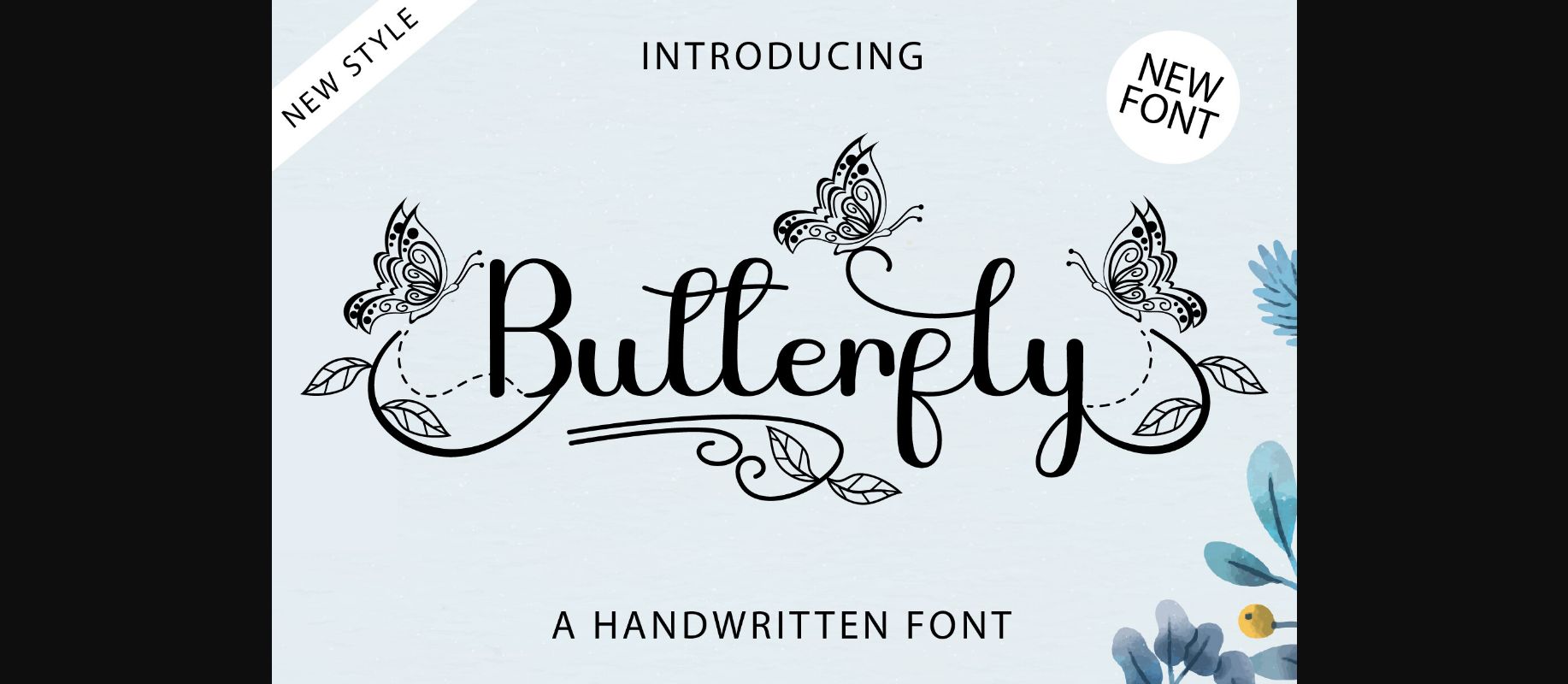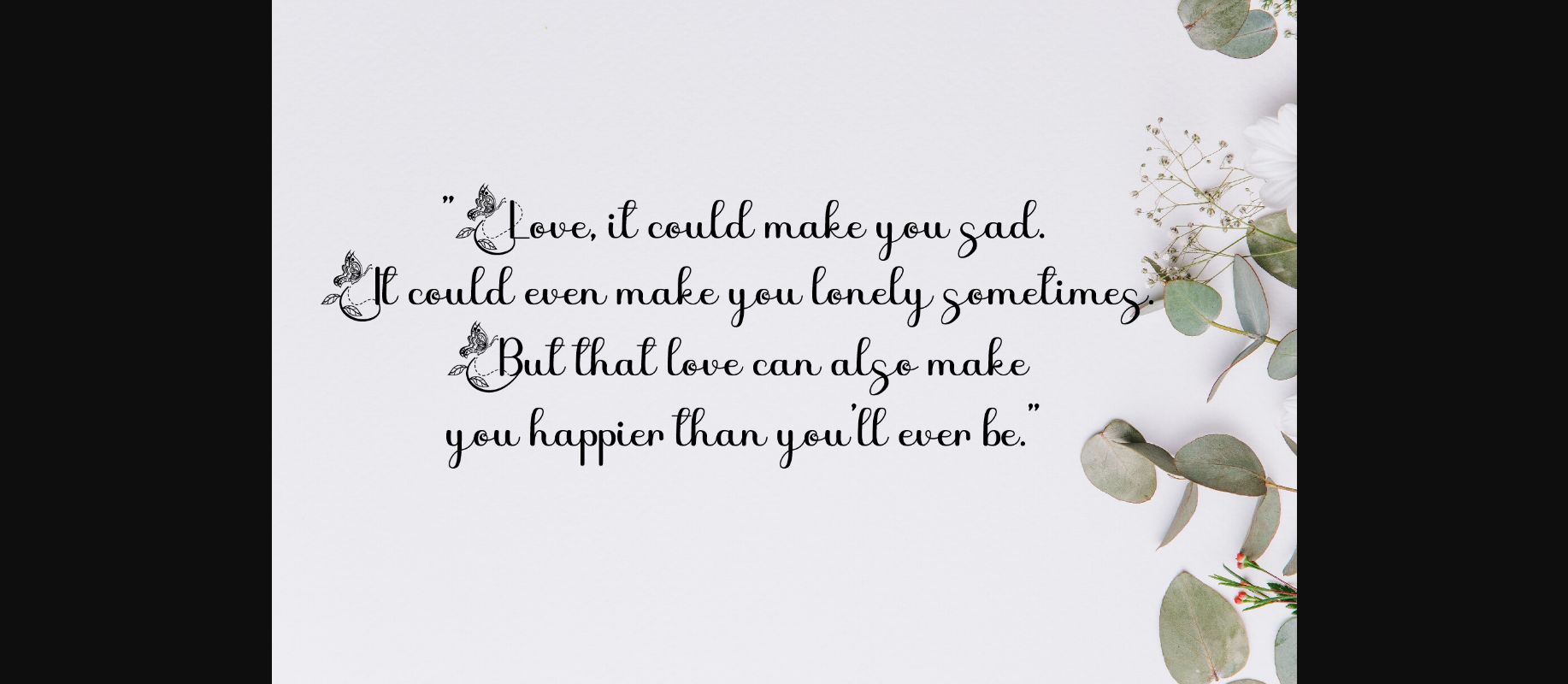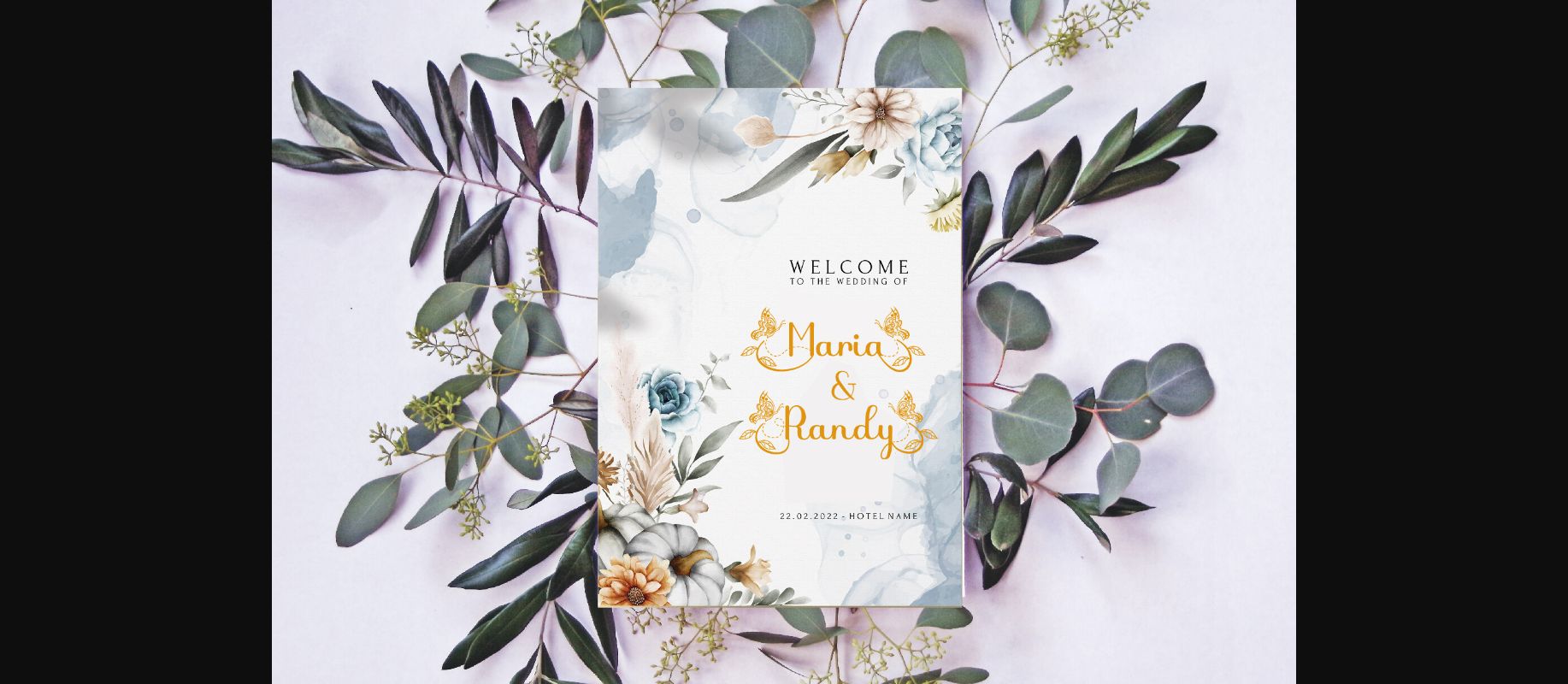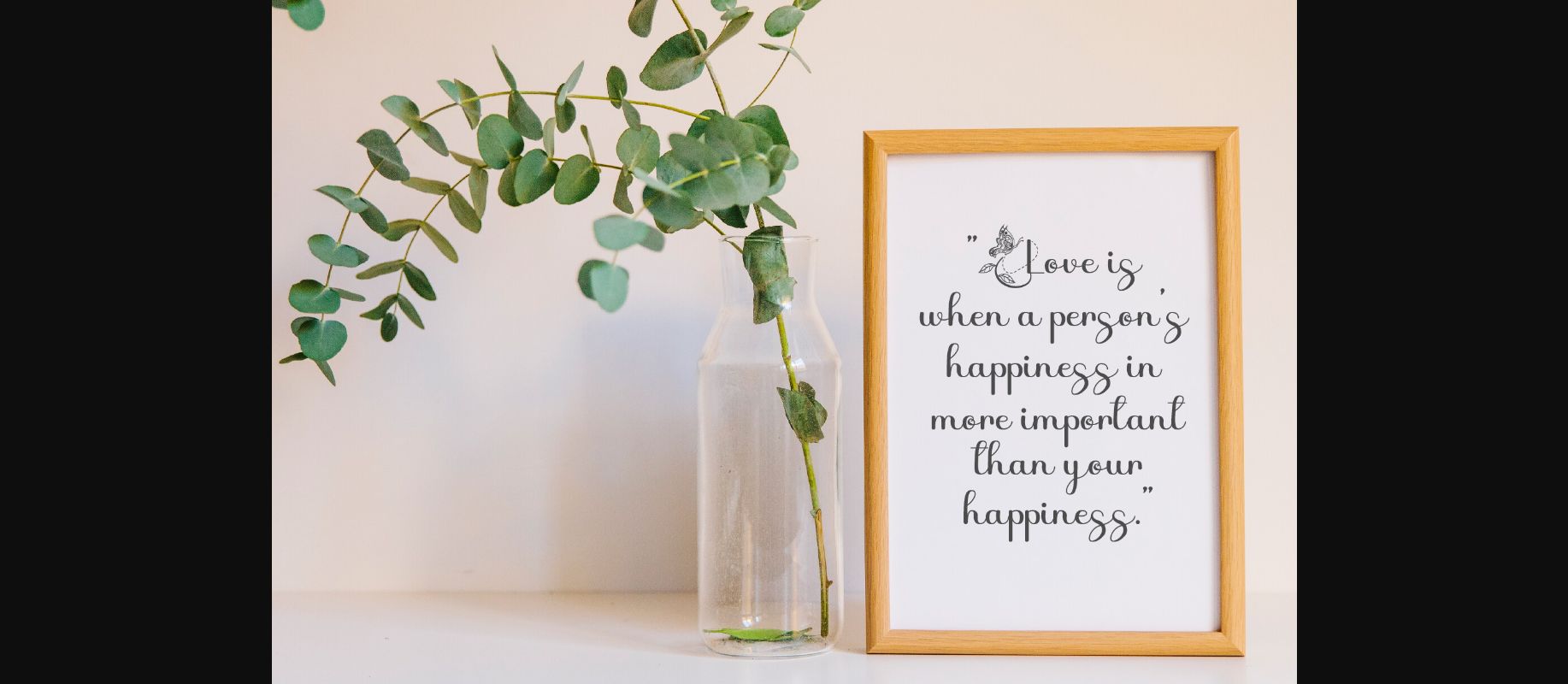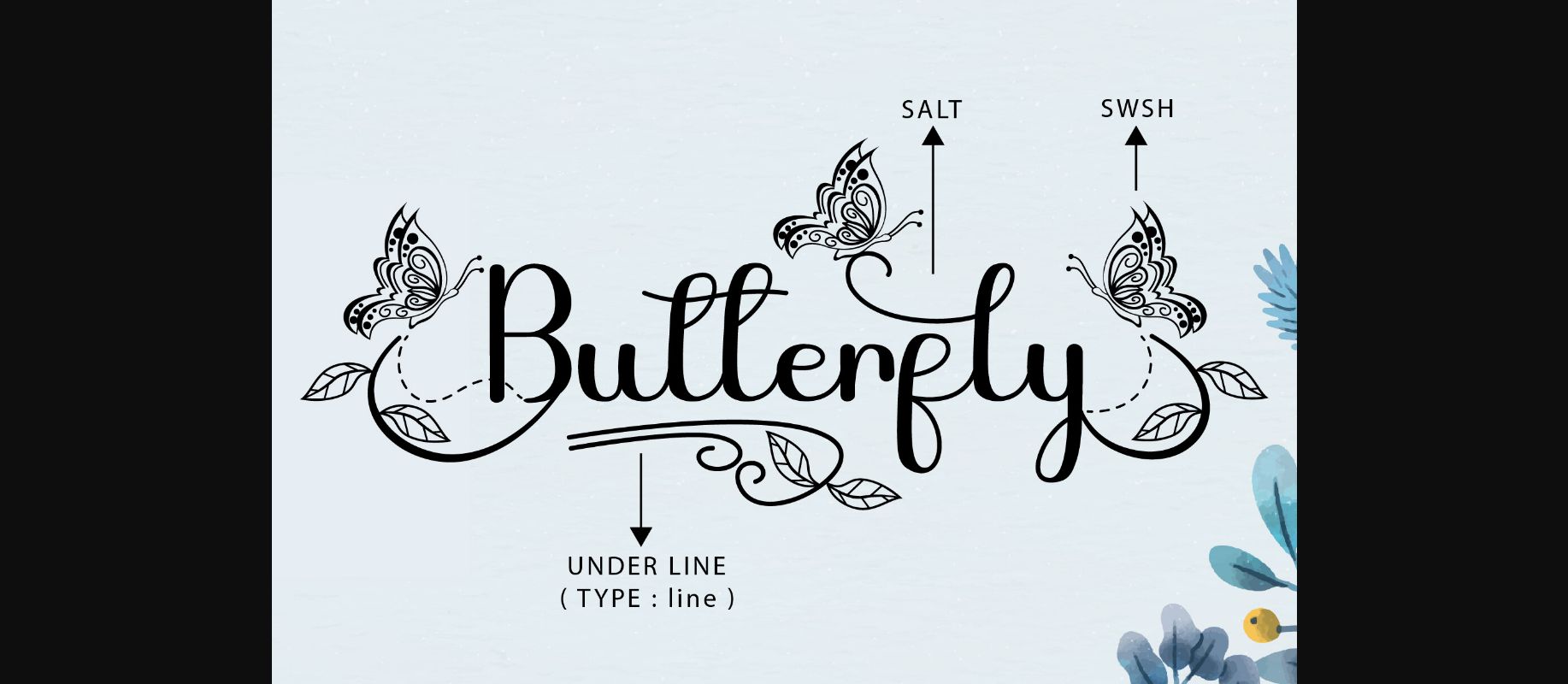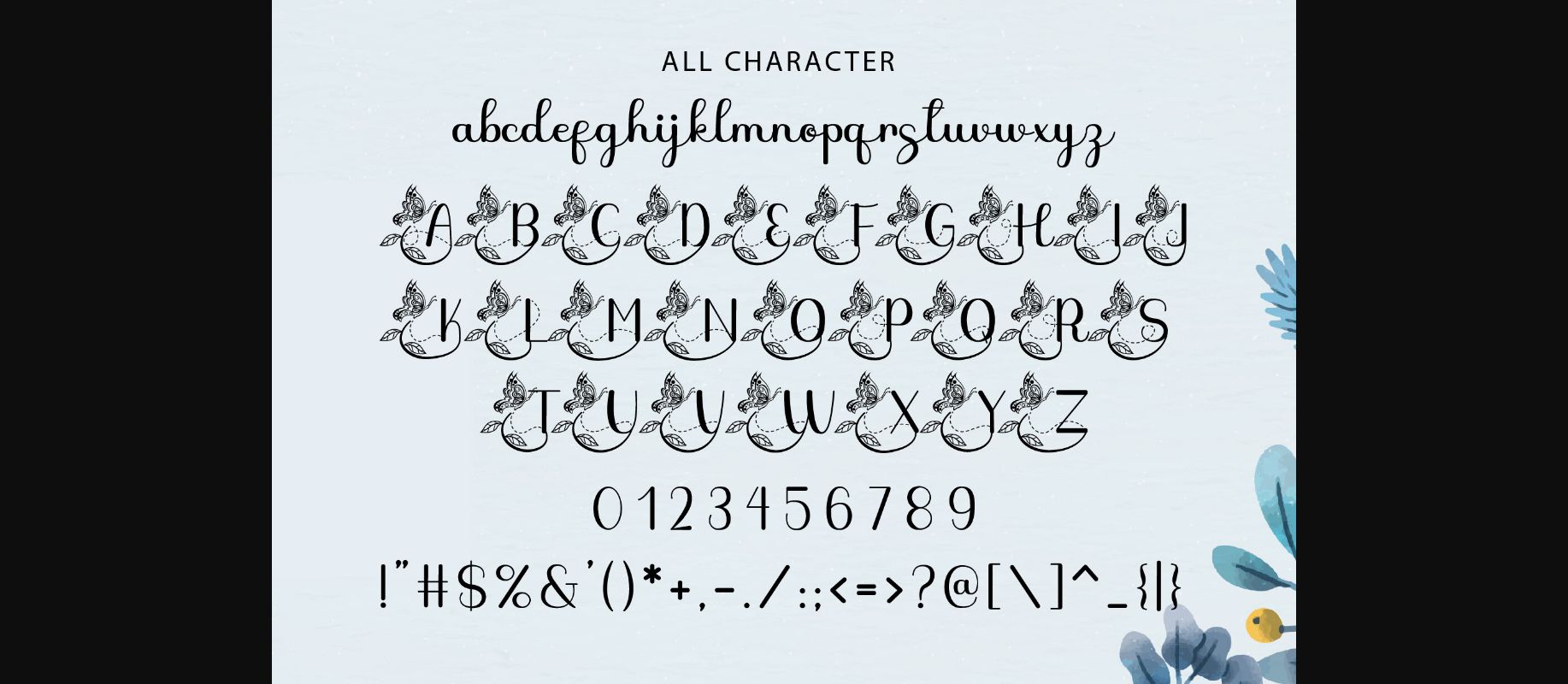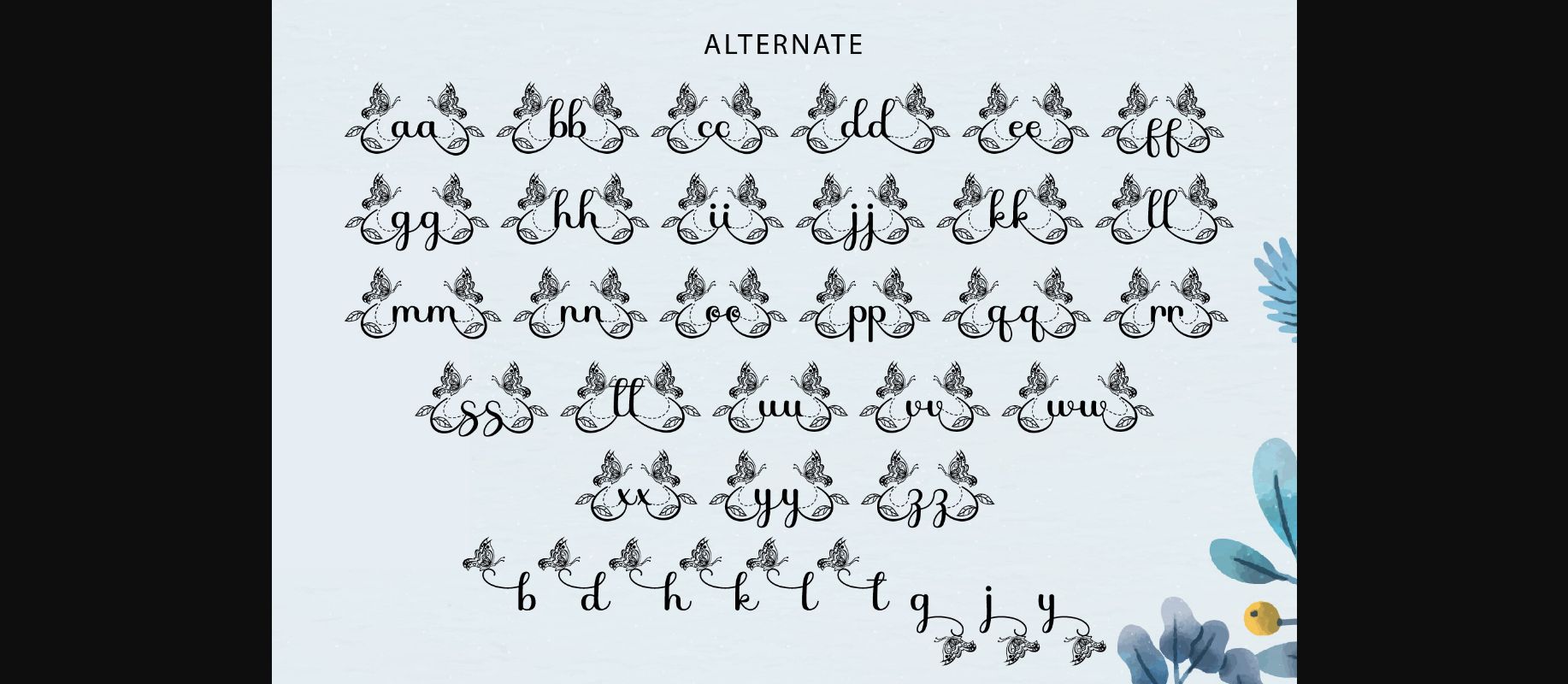
Butterfly Script is a stylish and incredibly elegant decorative handwritten font. It looks stunning on wedding invitations, thank you cards, quotes, greeting cards, logos, business cards, and every other design that needs a handwritten touch.